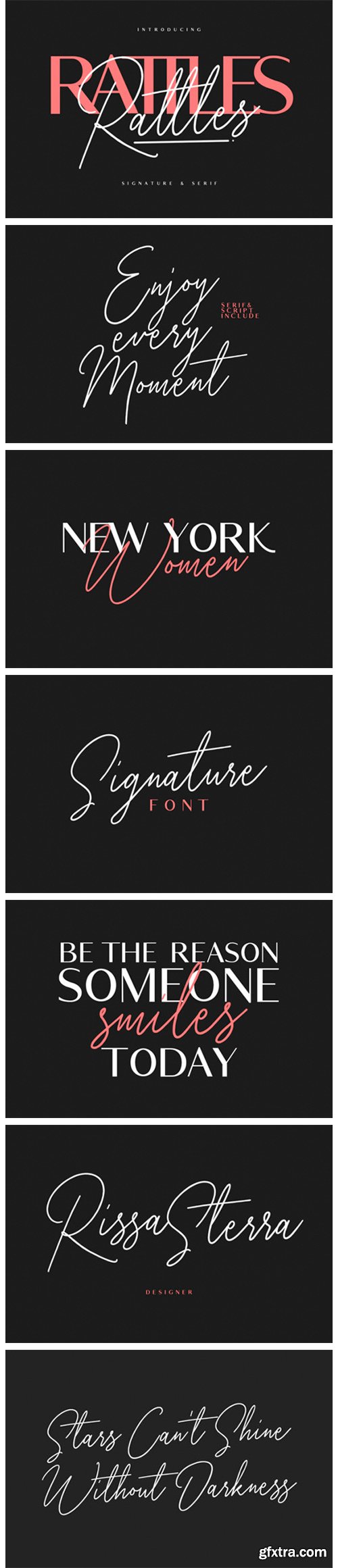
Rattles Font
Rattles is a beautiful and unique duo font (sans serif and handwritten). Incredibly versatile, this font fits a wide pool of designs, elevating them to the highest levels. Add this font to your favorite creative ideas and notice how it makes them come alive!